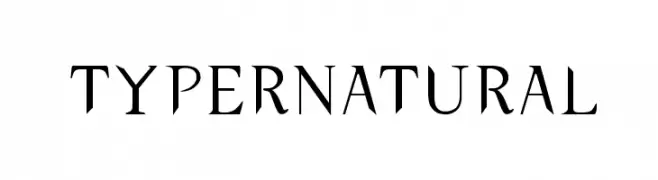
( Bastien Sozoo - sozoo.fr/ )
A bold, cursive script font with a playful and sophisticated style.
( Brelvi529 )
A modern, geometric font with high contrast and sleek lines.
( Cioroianu Stefan Cristian )
A classic serif font with elegant, sharp lines and a sophisticated appearance.
( DefayDesigns - www.defaydesigns.com )
A modern, geometric font with a clean and sophisticated design.
( Digital Empires - www.digitalempires.com )
A classic serif font with elegant lines and a sophisticated appearance.
( GNU FreeFont - savannah.gnu.org/projects/freefont/ )
An elegant serif font with italic styling, perfect for classic and sophisticated designs.
( George Williams - web.archive.org/web/20051223080638/bibliofile.mc.duke.edu/gww/fonts/fonts.html )
A light, elegant italic font with a modern and sophisticated style.
( Gunarta - naraaksara.com )
An artistic and ornamental font with elegant curves and a sophisticated style.
( James Fordyce )
An elegant and artistic font with unique curves and sharp edges, perfect for sophisticated designs.
( JoannaVu - ioannaladopoulou.com )
A sophisticated serif font with sharp serifs and elegant curves.